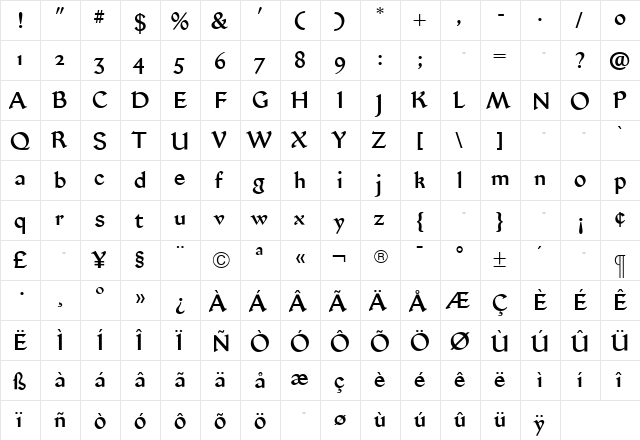
JubileeMedium Roman Font Preview
JubileeMedium Roman
JubileeMedium Roman Font Details
Design Context for JubileeMedium Typeface
JubileeMedium offers clean, dependable letterforms without strong stylistic allegiance, making it a practical choice for designers who need flexibility.